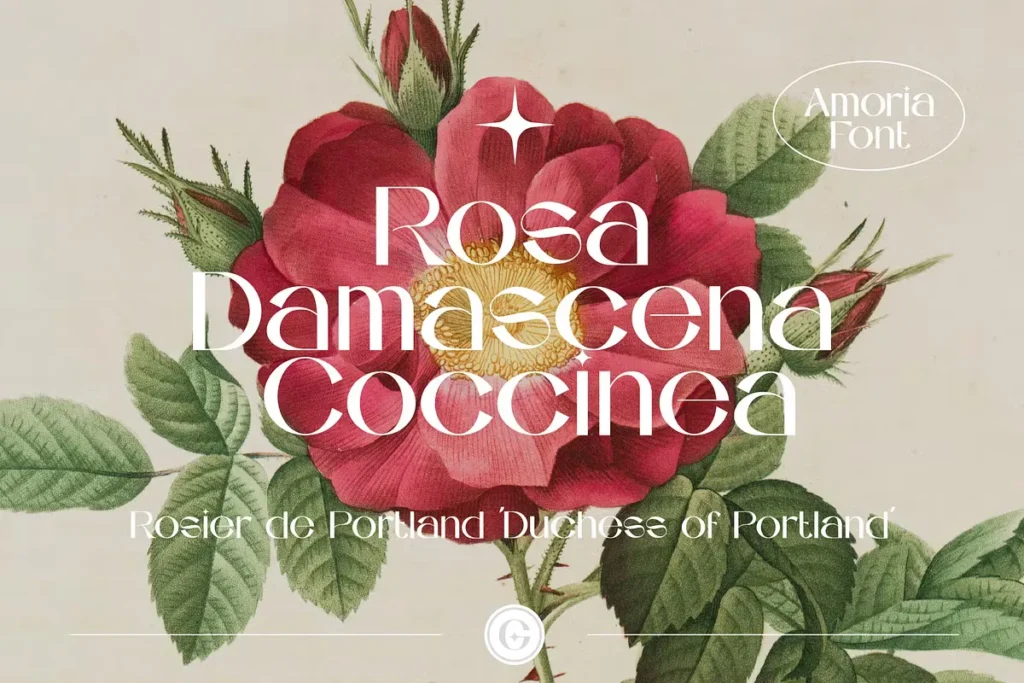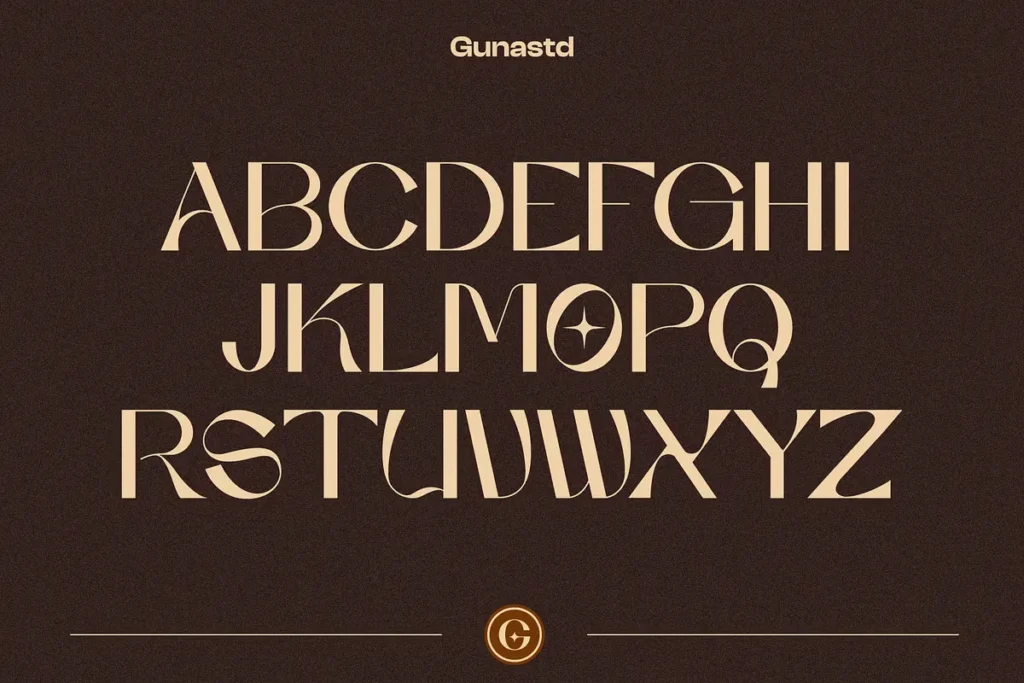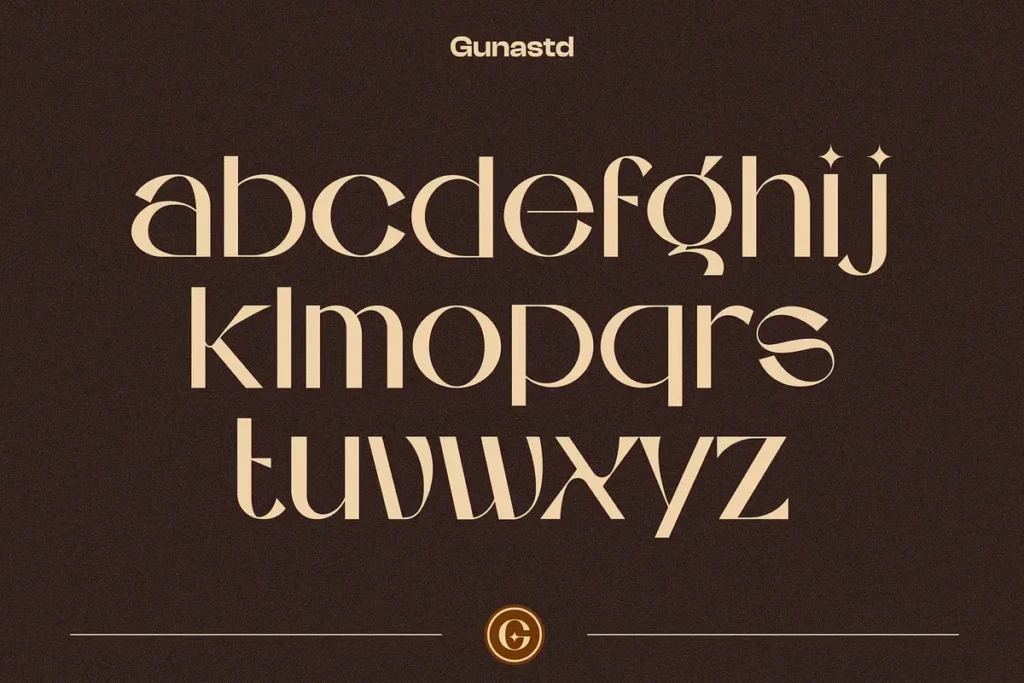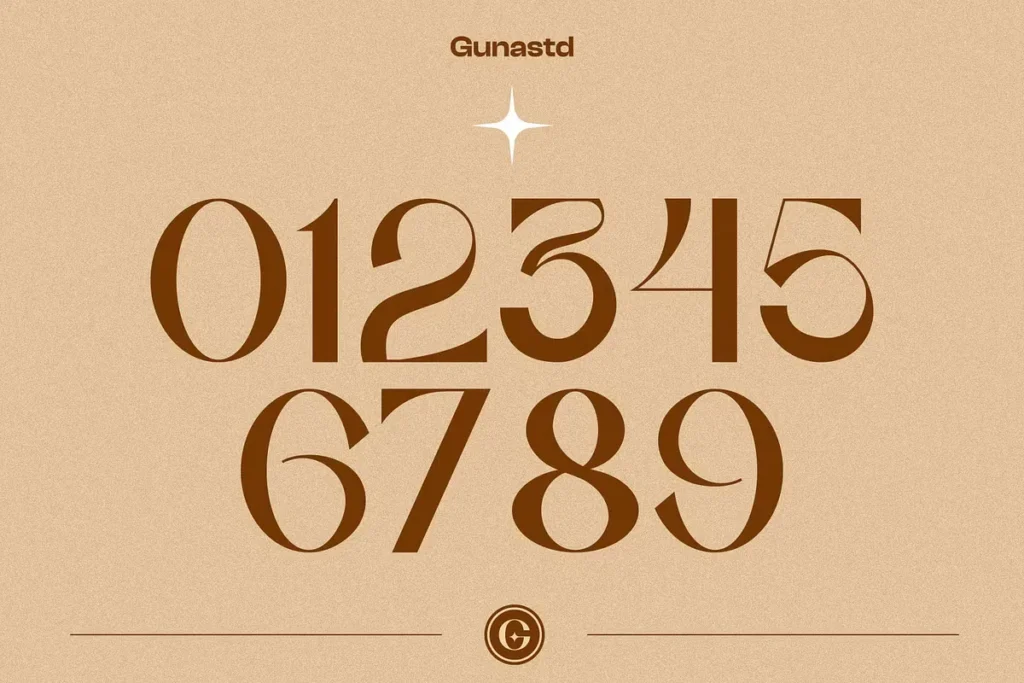
Introducing AMORIA, a bold and versatile Display Sans Serif Font crafted to make a strong visual impact across a wide range of creative projects. AMORIA blends retro charm with a modern edge, making it an ideal choice for designers seeking a unique typeface that combines vintage aesthetics with clean, contemporary structure.
Whether you’re working on logos and branding, wedding invitations, event posters, product packaging, or social media graphics, AMORIA delivers a standout personality that captures attention. Its bold structure and minimalist geometric design make it especially suitable for headlines, magazines, advertisements, and movie poster titles, providing both clarity and character.
AMORIA’s flexibility lies in its ability to be both elegant and strong, making it a perfect fit for editorial design, branding campaigns, web design, and creative market presentations. Whether you’re designing with a retro-inspired, modern, or distressed art style, AMORIA adapts beautifully to your aesthetic.
With tags like stylish, classic, trendy, bold, and decorative, AMORIA stands out as a top choice for creatives looking to elevate their typography game. Use it in your next graphic design, illustration, or creative inspiration project to give your visuals a fresh and impactful look.
AMORIA Free Display Sans Serif Font